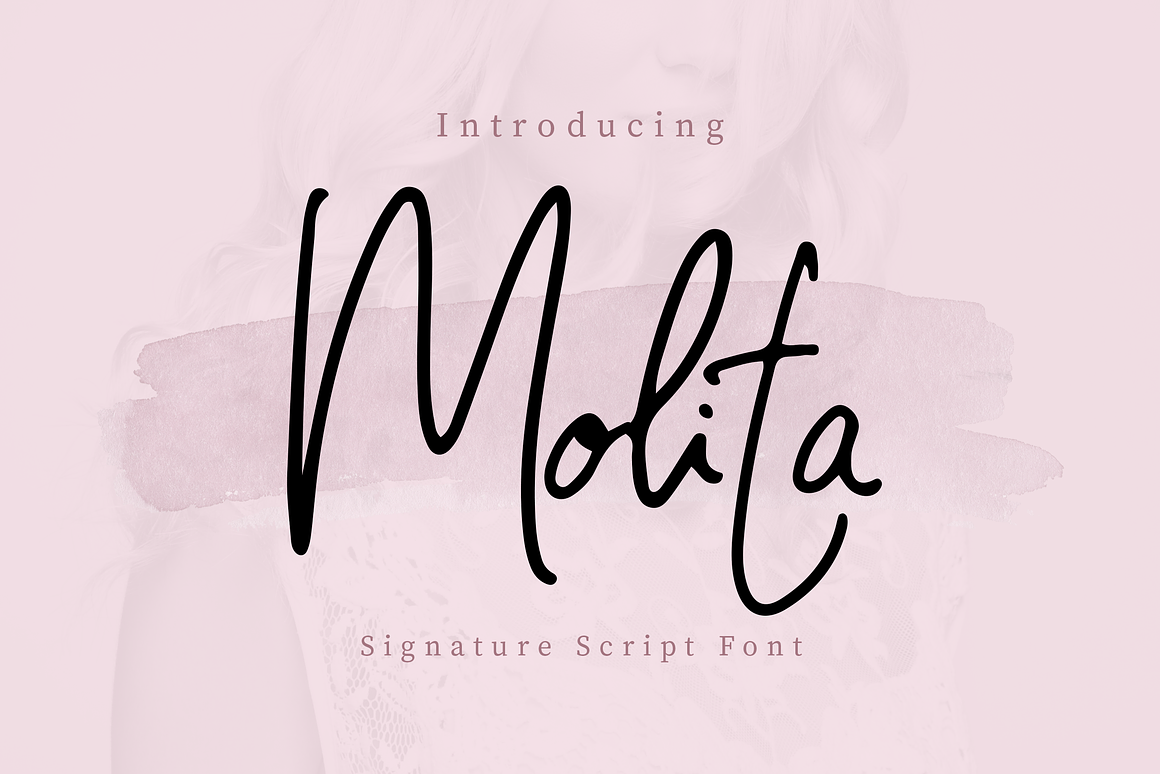
Molita Signature Script Font
The Molita Signature Script Font excels in elegant design applications including personal signatures, boutique branding, wedding stationery, luxury product labels, handwritten correspondence, creative portfolios, greeting cards, social media graphics, artistic certificates, and sophisticated packaging designs. Its graceful script style makes it perfect for projects requiring refined handwritten character that conveys elegance and establishes intimate connection with audiences seeking authentic, personal design elements.
What makes the Molita Signature Script Font truly exciting is its masterful combination of flowing script elegance with signature authenticity. The font features beautifully connected letterforms with smooth, organic curves that mimic natural pen movements across paper. Each character displays exceptional craftsmanship with carefully balanced proportions, elegant flourishes, and seamless connections that create the impression of skilled calligraphy. The font's sophisticated rhythm and natural flow give text an aristocratic quality while maintaining approachable warmth.
The Molita Signature Script Font family typically includes regular weight with extensive character coverage, featuring uppercase and lowercase letters, numerals, punctuation marks, and international characters. The typeface often incorporates stylistic alternates, contextual ligatures, and ornamental swashes that enhance its script sophistication. These additional glyphs provide designers with creative options to customize text appearance and achieve more natural-looking handwritten elegance throughout their compositions.
This distinguished script font captivates audiences through its remarkable ability to convey luxury and personality simultaneously. Unlike overly formal scripts that can feel distant or impersonal, Molita Signature Script Font maintains the intimate quality of personal handwriting while delivering professional polish. The font's versatile character makes it equally suitable for high-end commercial applications and personal creative projects where elegance and authenticity are essential design requirements.